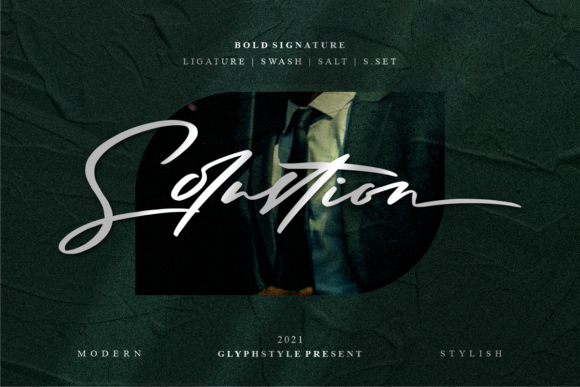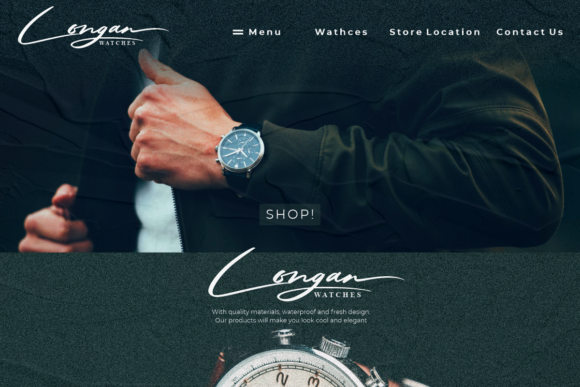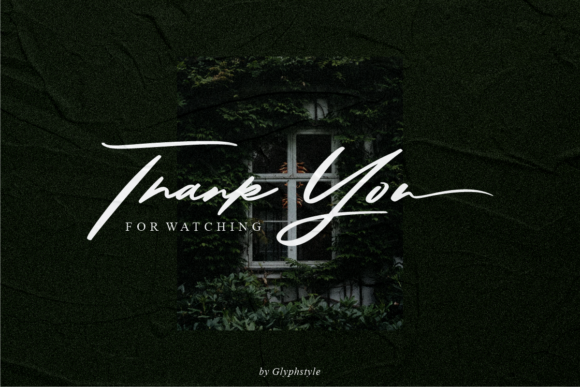
About Solustion Font
Solustion is a thin lettered and fashionable script font that exudes elegance and class. This font was particularly crafted for those who need a beautiful and refreshing look to their designs.
Solustion is PUA encoded which means you can access all glyphs and swashes with ease!